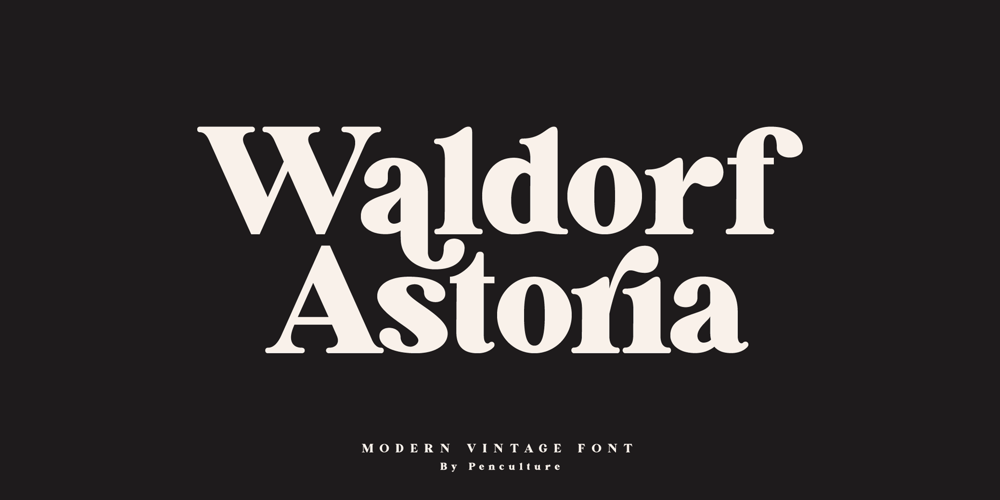
Waldorf Astoria Font Family was designed by Revo Farsiky and published by Pen Culture. Waldorf Astoria contains 1 styles and family package options. Introducing the new “Waldorf Astoria” modern vintage fontWaldorf Astoria is a is a modern serif with a vintage touch. With a combination of modern and vintage this font will be suitable for your design needs both for branding, logos, packaging, magazine imagery, posters, wedding invitations, advertising, as well as other modern or vintage projects.Feature and what will you get: Outstanding uppercase and lowercase Awesome ligature and alternate Number & Punctuation Multilingual Support I really hope you enjoy it – please do let me know what you think, comments & likes are always hugely welcomed and appreciated. More importantly, please don’t hesitate to drop me a message if you have any issues or queries.Thank you